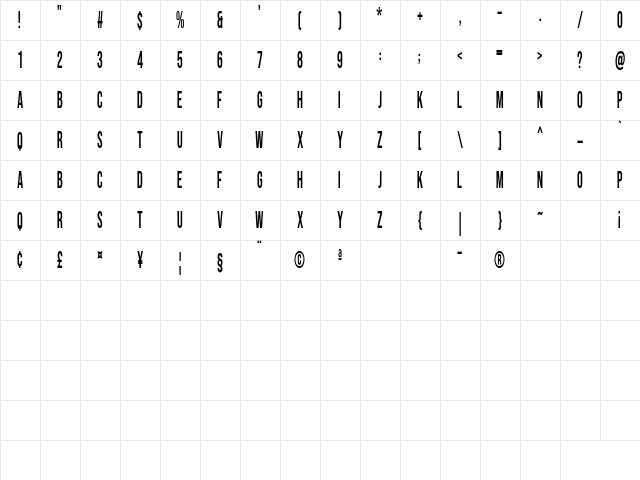
Sans Fransisco Semi Bold Font Preview
Sans Fransisco Semi Bold
Sans Fransisco Semi Bold Font Details
| Designer | Julie Anna |
Design Context for Sans Fransisco Typeface
Sans Fransisco offers clean, dependable letterforms without strong stylistic allegiance, making it a practical choice for designers who need flexibility. Its bold stroke weight gives it real presence on the page.